Introduction: Font Choice Shapes First Impressions
Your brand’s typeface isn’t just style—it’s strategy. Whether you choose serif or sans-serif, the font will influence how people feel about you.
It sets the tone before your audience reads a single word. So, picking the right one is critical to brand success.
The Serif Font: Tradition, Elegance, and Trust
Serif fonts have small decorative lines or “feet” at the ends of their letters. They often feel timeless, formal, and established.
Brands like The New York Times, Vogue, and Time Magazine use serif fonts to project reliability and legacy. If your brand values trust, tradition, or authority, serif might be the way to go.
Additionally, serif fonts work especially well for industries like law, finance, and editorial publishing.
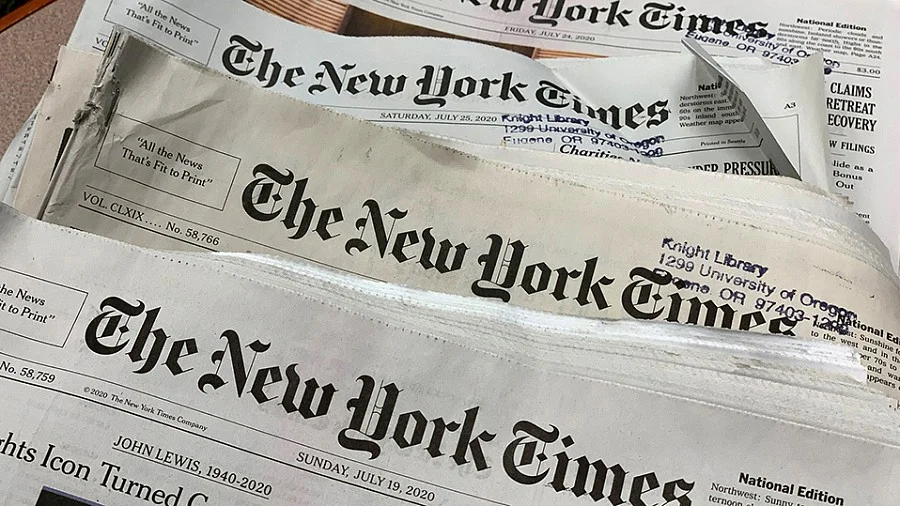
The Sans-Serif Font: Clean, Modern, and Bold
Sans-serif fonts are sleek and minimal. Without extra flourishes, they feel fresh, youthful, and direct.
Tech giants like Google, Spotify, and Netflix use sans-serif fonts to reflect innovation and simplicity. If your brand is modern, accessible, or forward-thinking, sans-serif fonts are a smart choice.
These fonts shine in digital spaces. They’re easier to read on screens and feel more casual yet confident.
Ask Yourself: What Does Your Brand Stand For?
Before you decide, revisit your brand values. Is your brand traditional or disruptive? Conservative or creative?
For example, a luxury brand might choose a serif font for sophistication, while a startup might prefer sans-serif to feel current and clean.
Think About Your Audience’s Expectations
Your audience brings their own biases and expectations. For instance, older audiences may feel more comfortable with serif fonts. Younger users often gravitate toward sans-serif.
So, choose the font that speaks their language—not just yours. A good font builds a bridge between your message and their mindset.
Consider Where Your Font Will Live
Your font won’t just appear on a logo. It’ll show up on websites, social posts, packaging, and more.
Therefore, pick a style that performs well in multiple formats. Serif fonts look great in print, while sans-serif often reads better on screens. That’s a key factor in choosing your font family.
Still, Torn? Combine the Two Strategically
Great news—you don’t always have to pick one. Many brands successfully combine serif and sans-serif fonts.
For example, use a bold sans-serif for your logo and a classic serif for body text. This creates contrast while keeping your brand flexible and dynamic.
Just remember: consistency is key. Choose complementary fonts and stick to your style guide.
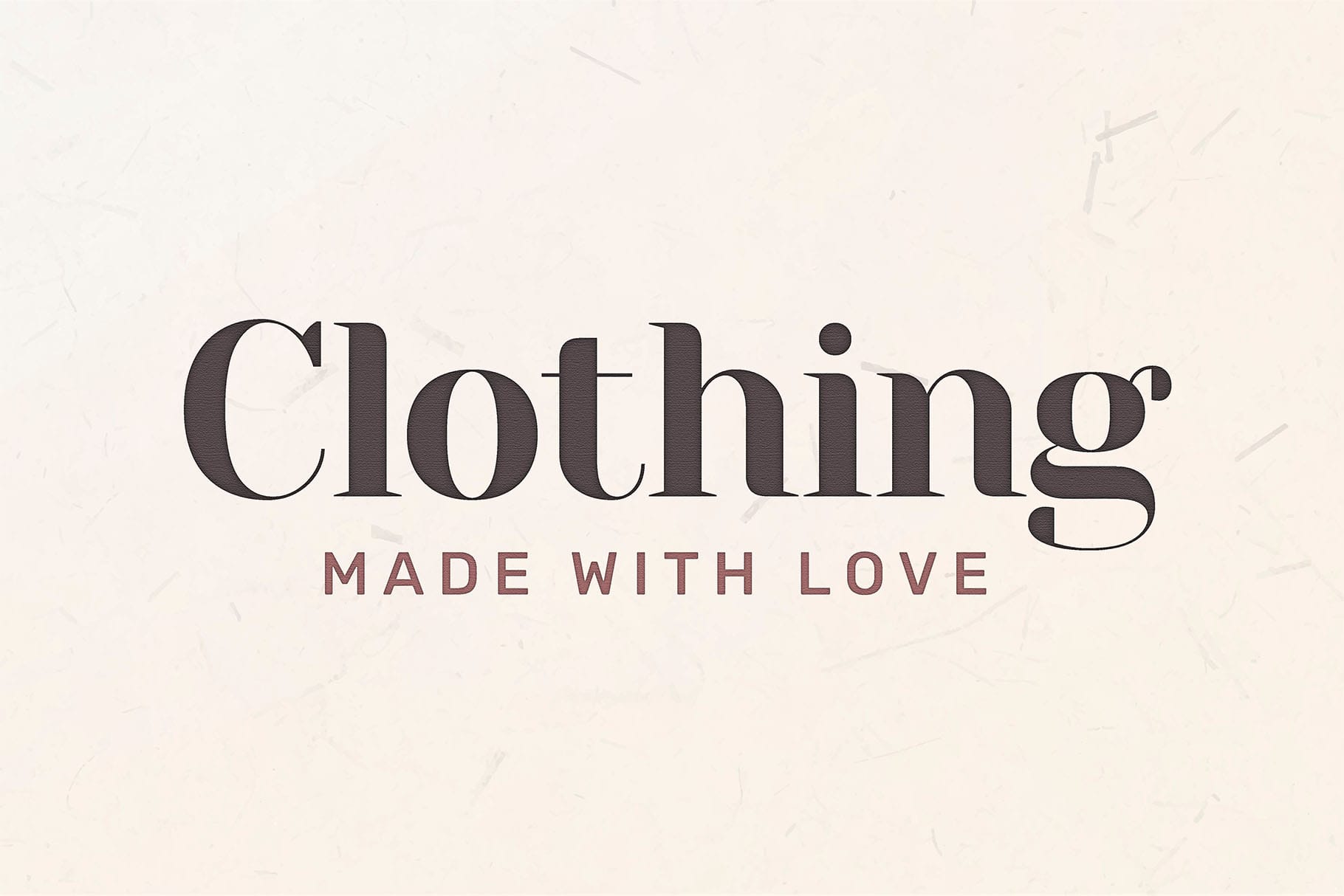
Final Thoughts: Let Your Font Speak for Your Brand
Your font does more than decorate—it communicates. Whether you choose serif or sans-serif, the decision should feel aligned, not random.
Take time to explore. Test different combinations. Get feedback from your team and your audience. When you find the right match, your brand won’t just look good—it’ll feel right.